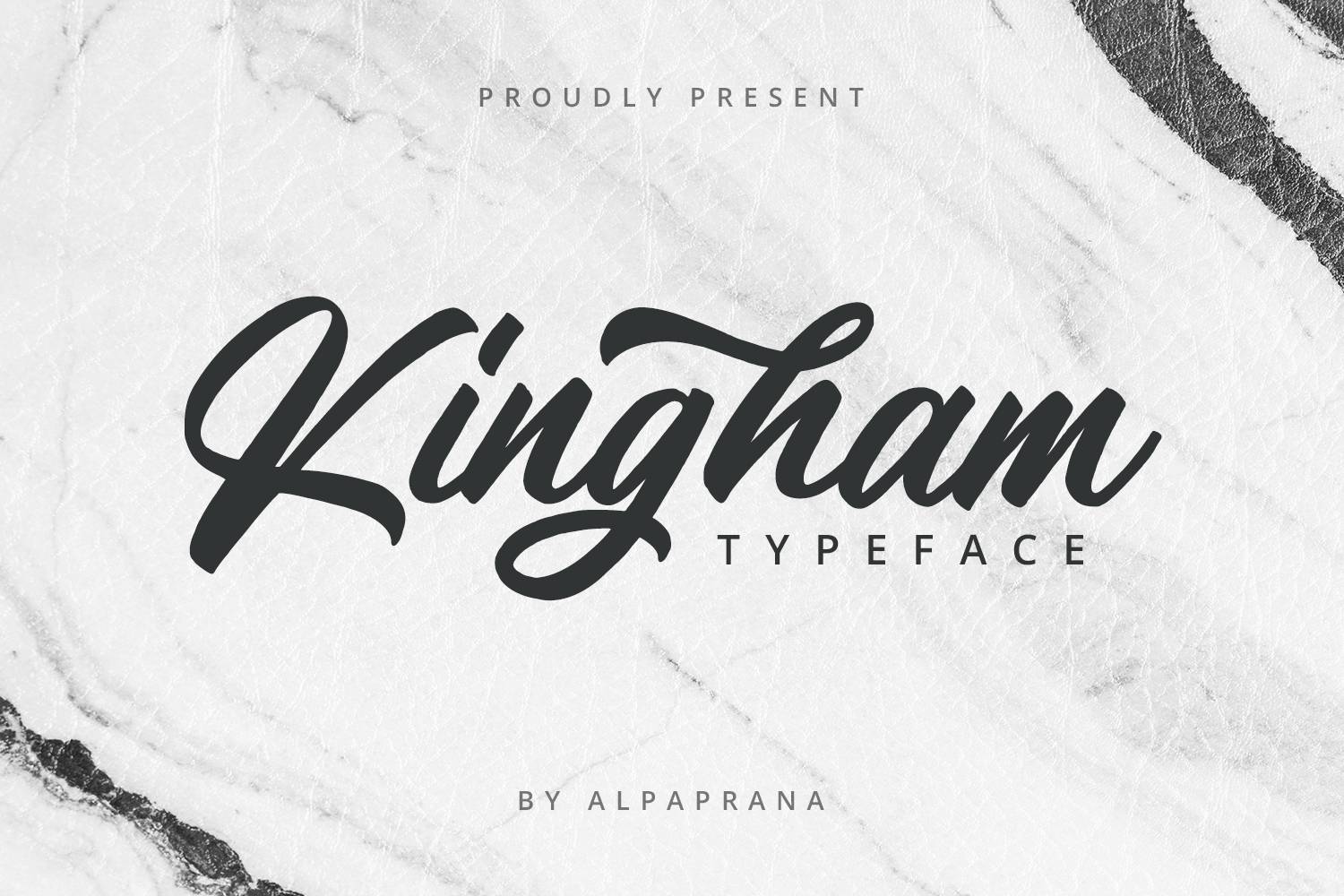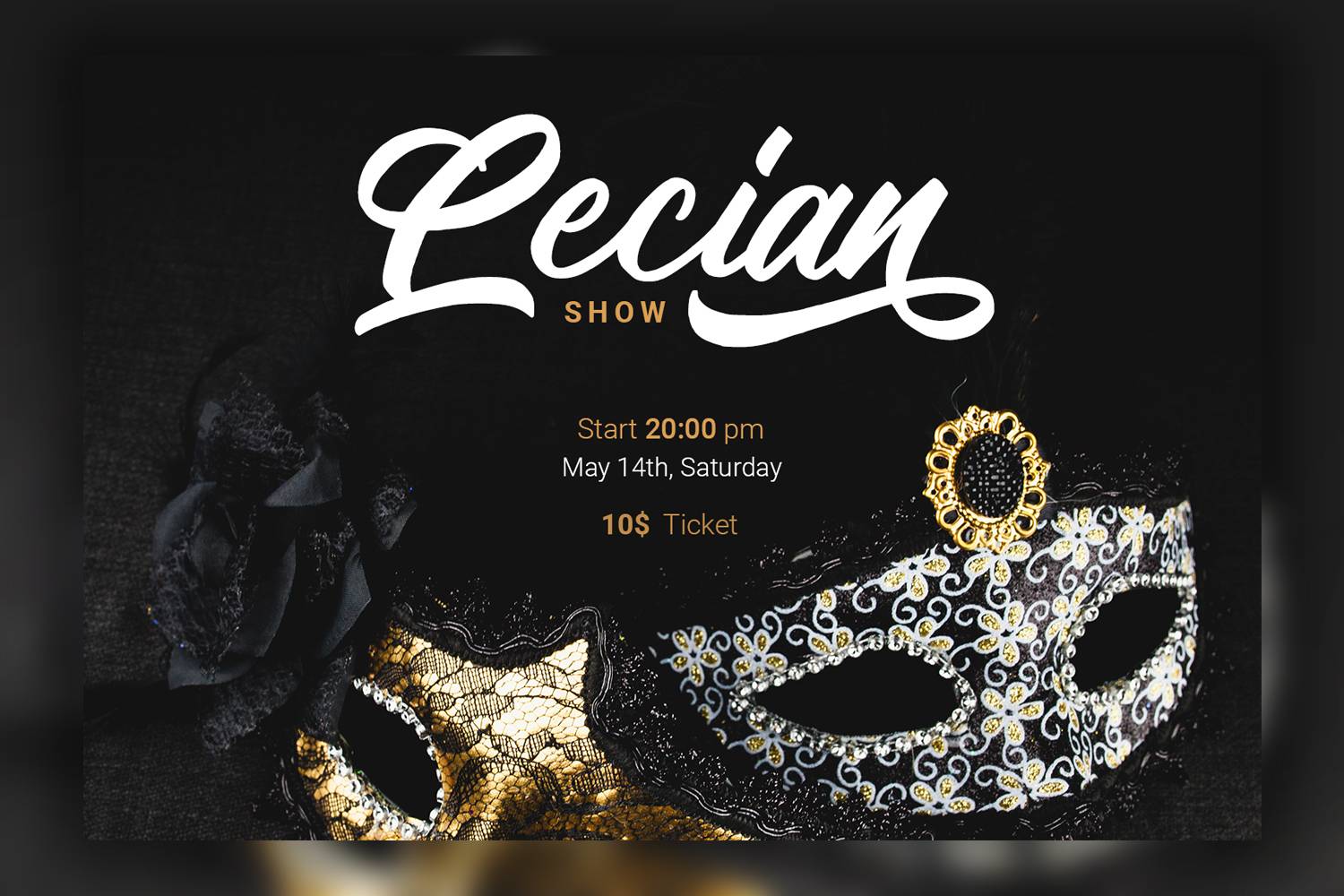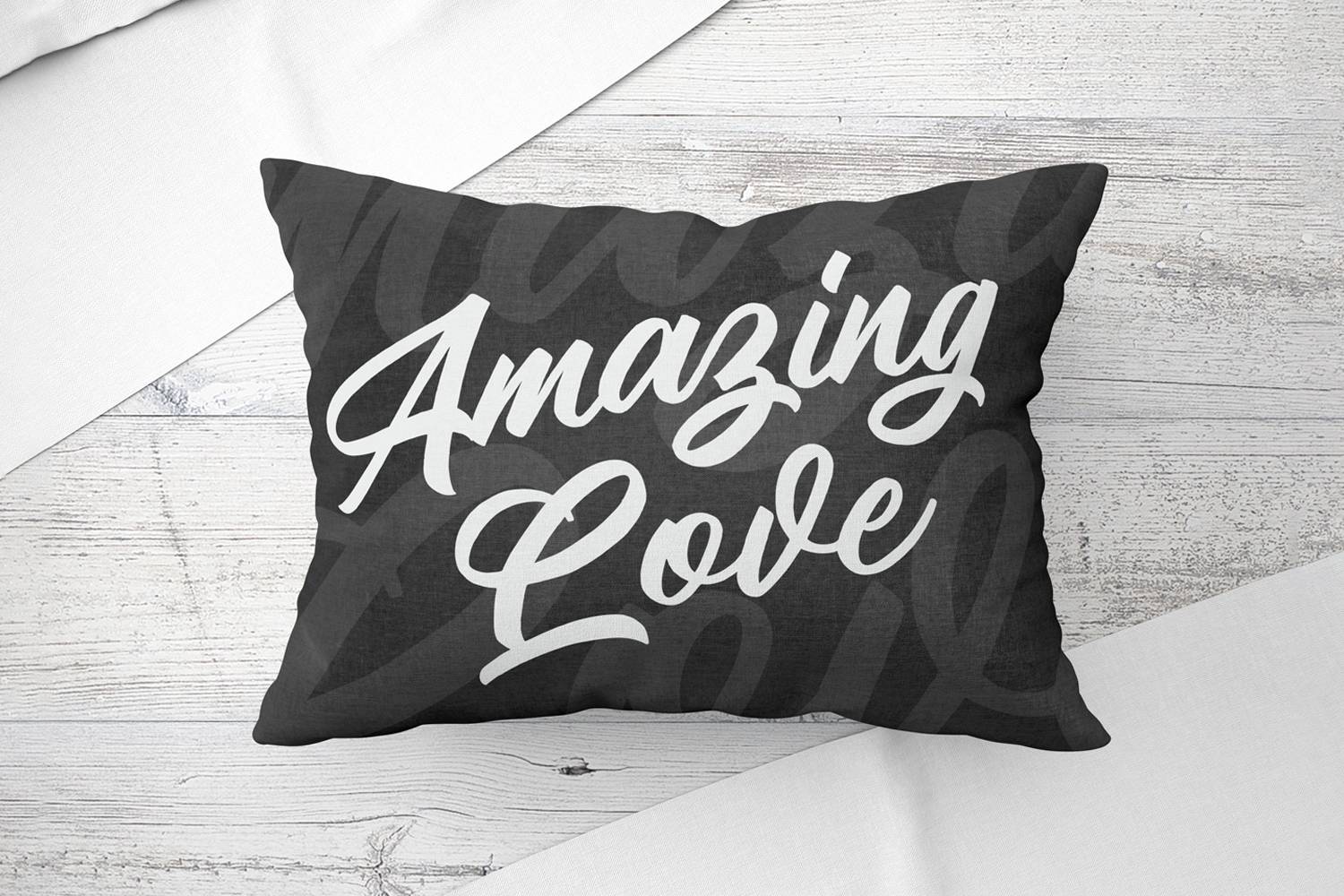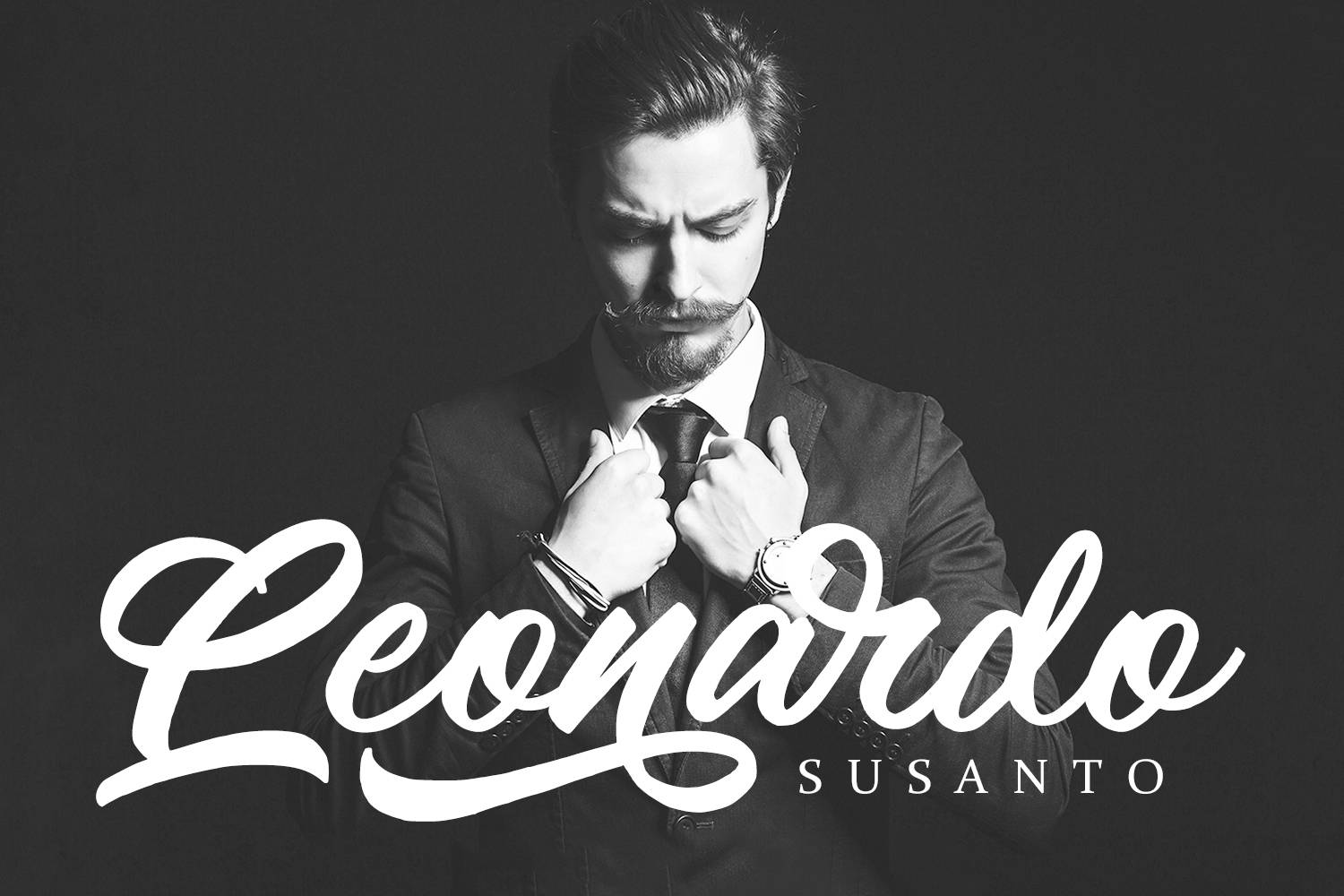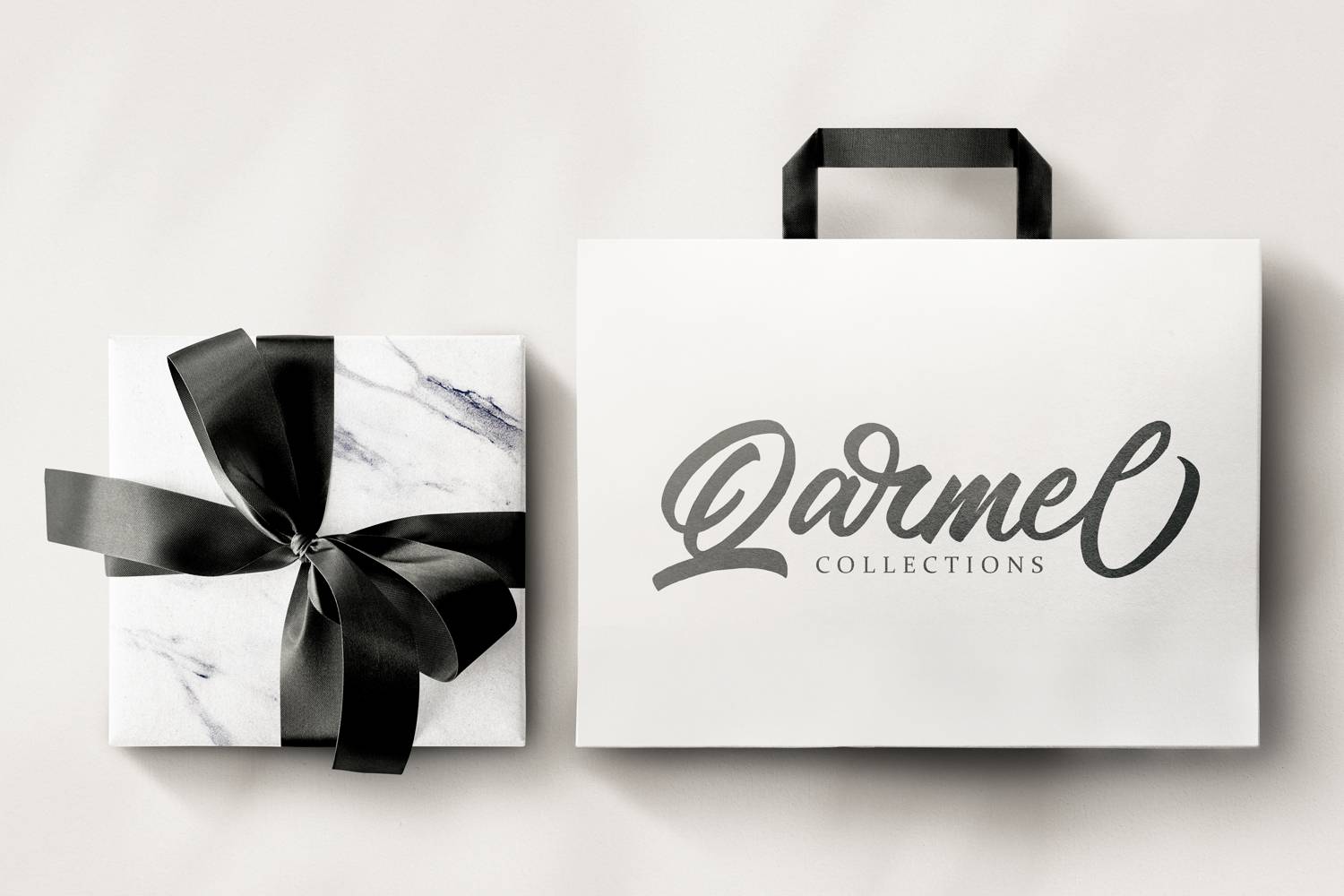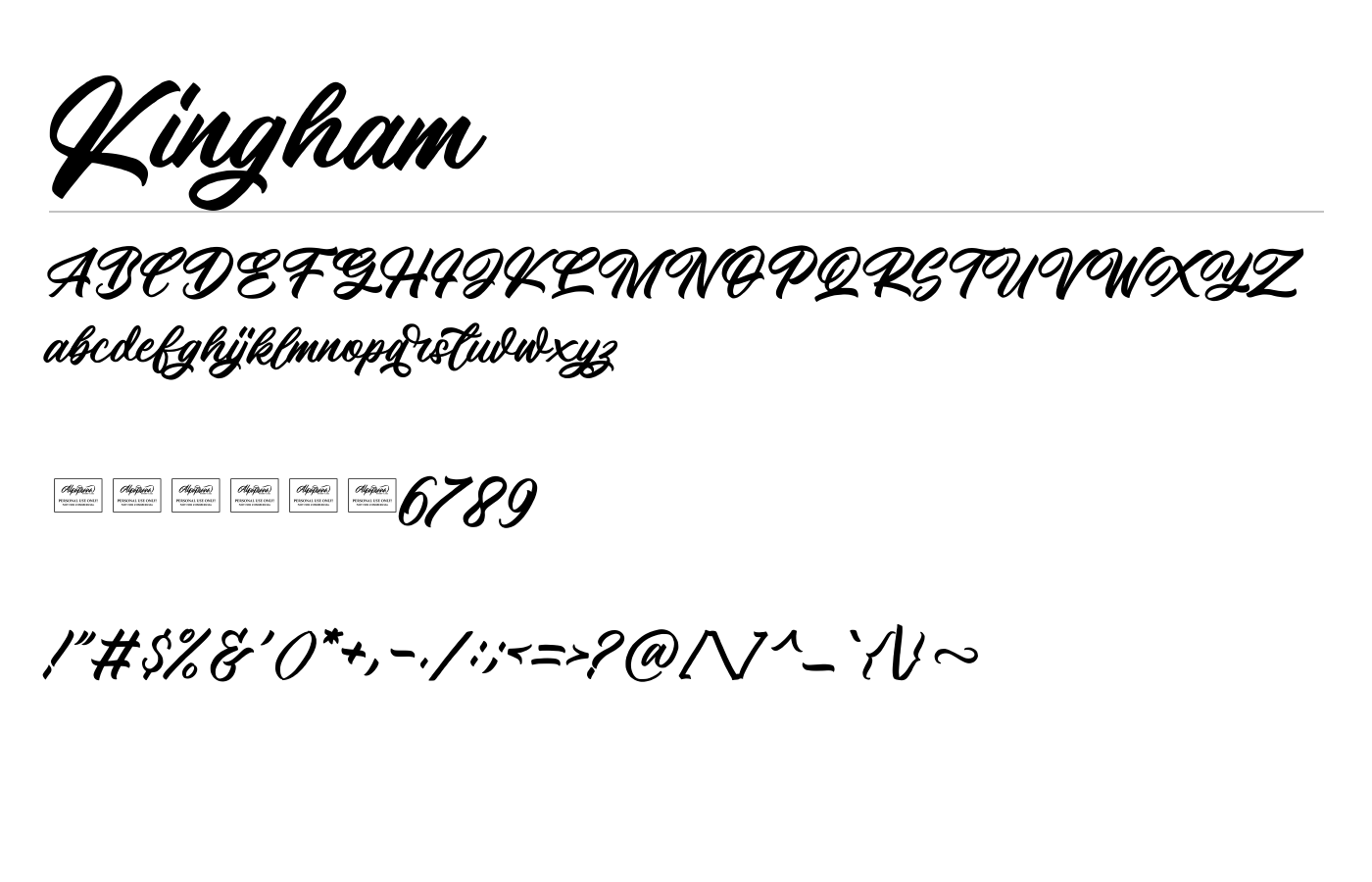
Kingham is a stylish, bold script font with smooth, flowing strokes that give it an elegant and handwritten feel. Its high contrast between thick and thin lines, combined with distinctive letterforms, makes it ideal for creating eye-catching logos, invitations, and branding that aims to convey sophistication and personality. This font works best in display settings where its decorative and lively character can shine.
Kingham Font
About Kingham Font
| Font family | Kingham Font |